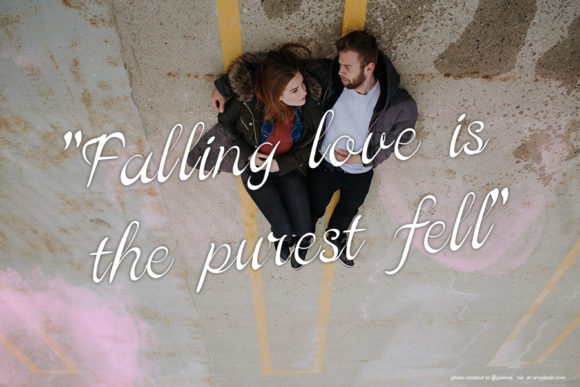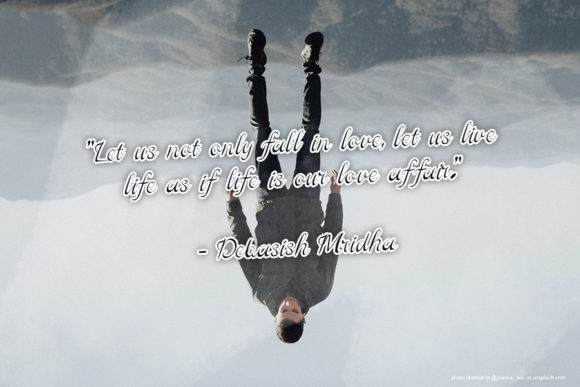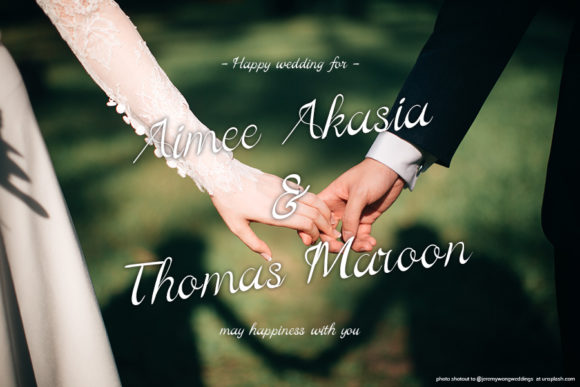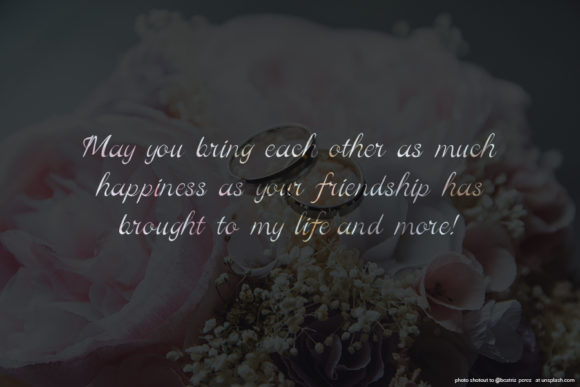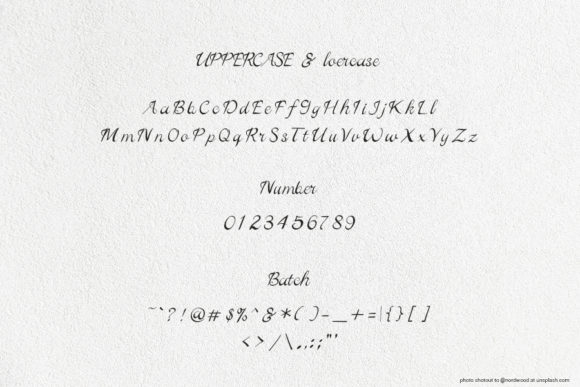
Introduction to Secret Valentine Font
Have you ever found yourself rummaging through your design resources, searching for the perfect font to give that extra touch of romance to a project? You know, that special something that makes your client’s eyes light up and their hearts skip a beat? For me, it’s a moment like that which sparked the creation of this article – all about the enchanting Secret Valentine Font.
This beautifully crafted handwritten font is a game-changer for designers, adding a touch of elegance and sophistication to any creative project. With its smooth and delicate lines, it’s perfect for greeting cards, love letters, or even headlines that scream romance. Whether you’re working on a design for a special occasion or simply want to give your next project a personal touch, the Secret Valentine Font is guaranteed to make your work stand out.
About the Secret Valentine Font
Key Features of Secret Valentine Font
- High-quality, elegant design suitable for romantic and creative projects
- Transparent background for easy layering and customization
- Available in various font sizes and resolutions, ideal for print and digital design
- Unique, hand-drawn design elements for added flair to any creative project
- Designed as a versatile design resource for use in greeting cards, invitations, and more
Honest Review: Secret Valentine Font
I recently stumbled upon the Secret Valentine Font, and I must say, it’s been a delightful addition to my design resource library. The font itself is a beautiful, elegant script that exudes romance and whimsy.
- ✨ The font is incredibly versatile and can be used for a wide range of creative projects, from wedding invitations to Valentine’s Day cards.
- ✨ The high quality of the font is evident in its smooth lines and intricate details, making it perfect for designers who value precision.
- ⚠️ The font may not be suitable for designs that require a transparent background, as the script can appear slightly blurry when placed over a transparent layer.
Overall, I’m thoroughly impressed with the Secret Valentine Font. Its beauty and versatility make it a valuable addition to any designer’s library. While it may have some limitations, the font’s strengths far outweigh its weaknesses, and I highly recommend it to anyone looking for a high-quality, free design resource.